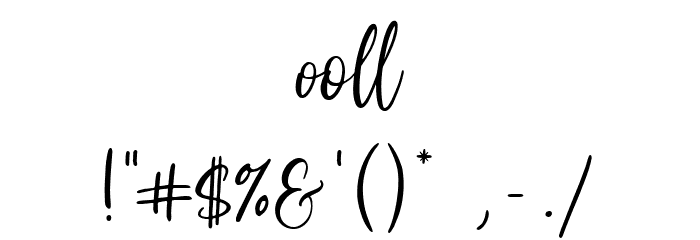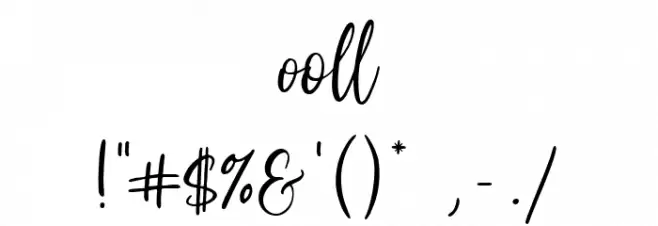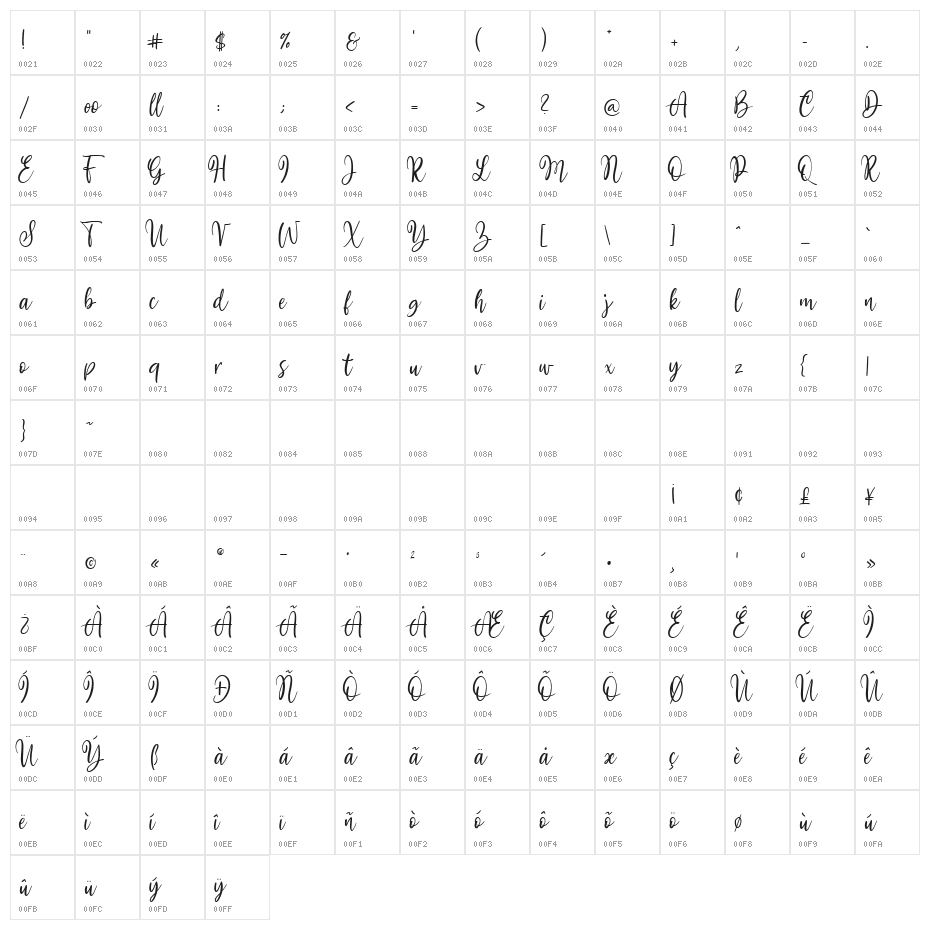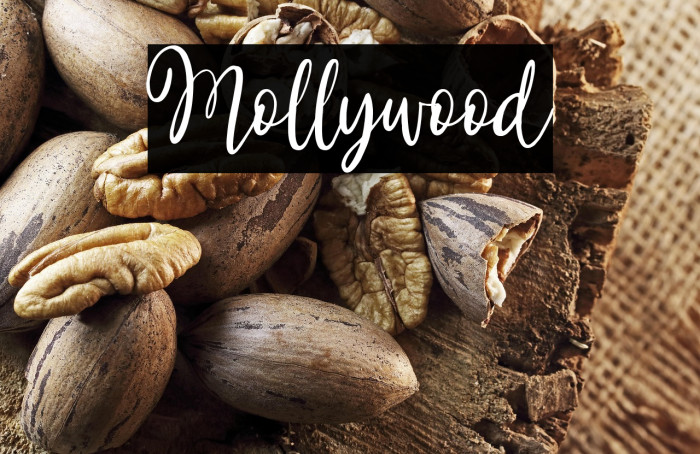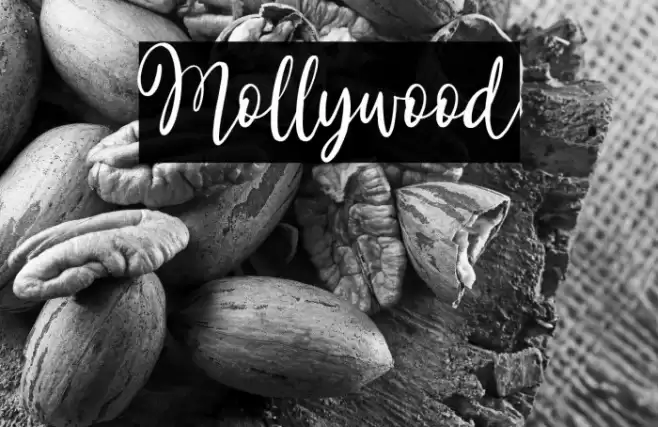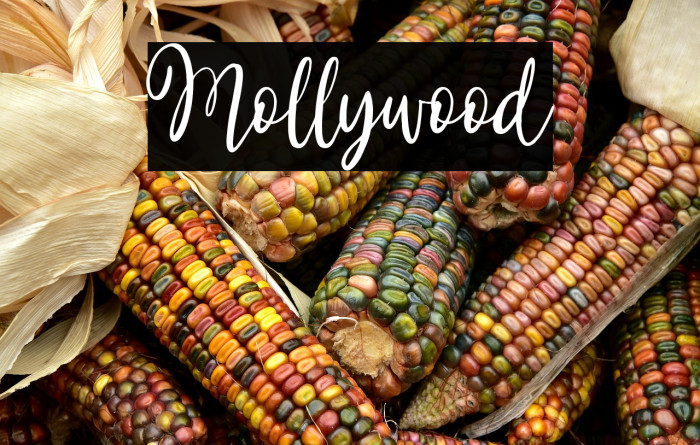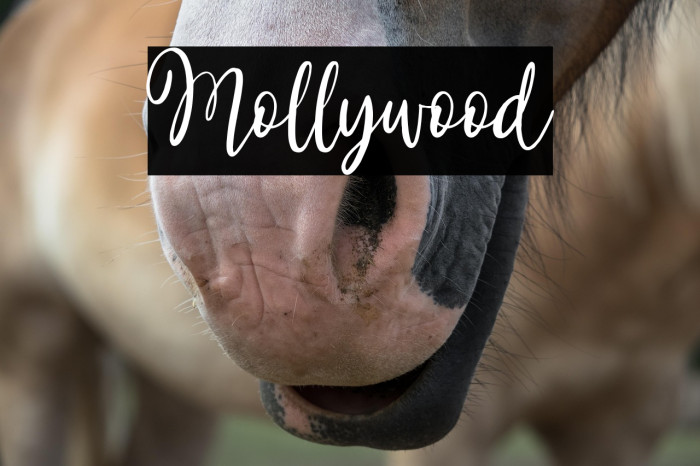
Mollywood Font
Mollywood Description
This font features a lively and expressive script style, characterized by its flowing, cursive letterforms. The uppercase letters are ornate and dynamic, with sweeping curves and elegant loops that convey a sense of movement and grace. The lowercase letters maintain a consistent style, offering a harmonious blend of readability and artistic flair. The font includes a full set of numerals and a variety of special characters, ensuring versatility for different design needs. Its handwritten appearance adds a personal touch, making it suitable for projects that require a warm and inviting aesthetic.
| Proposed Projects | Ideal for wedding invitations, greeting cards, branding, and social media graphics. |